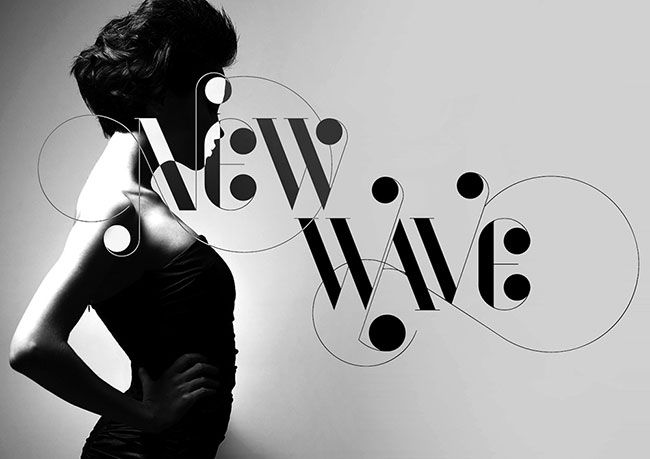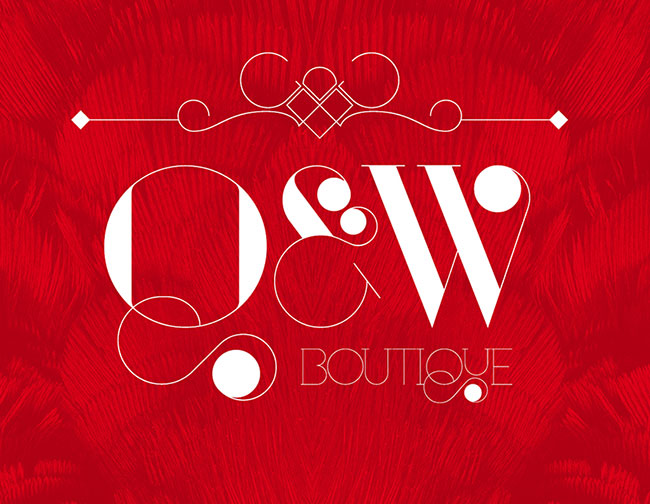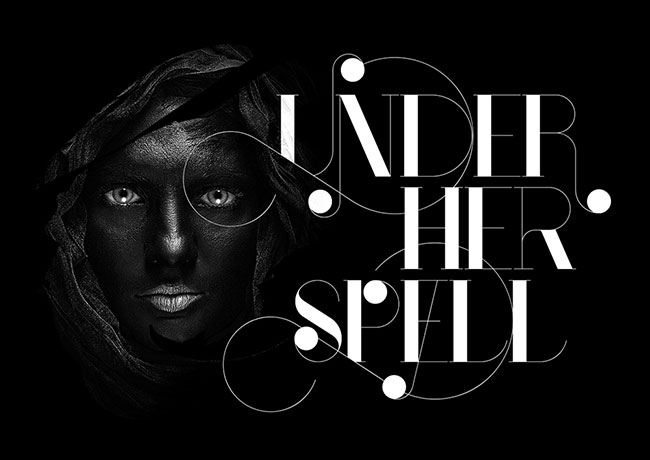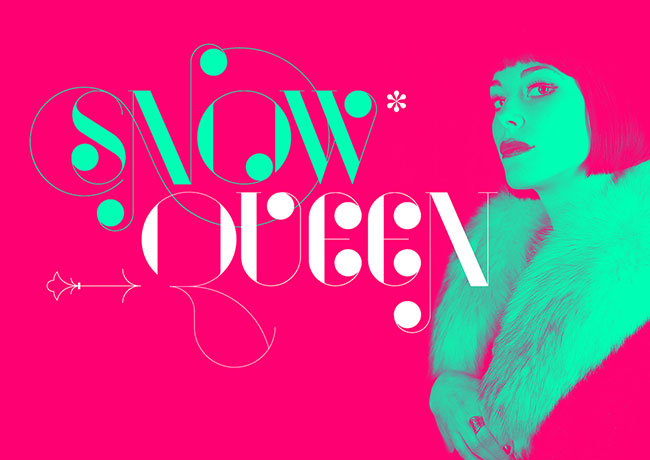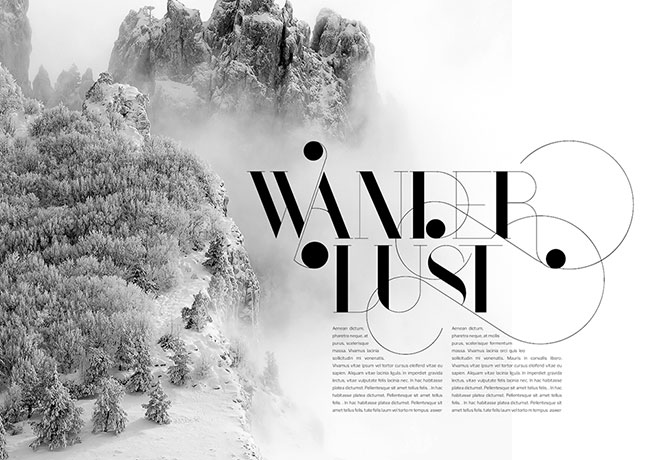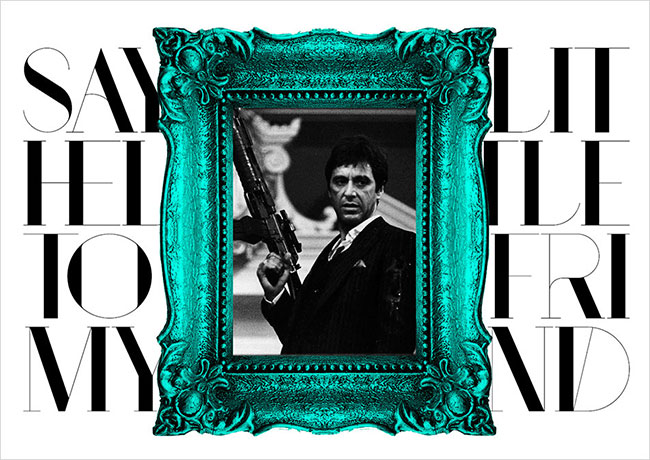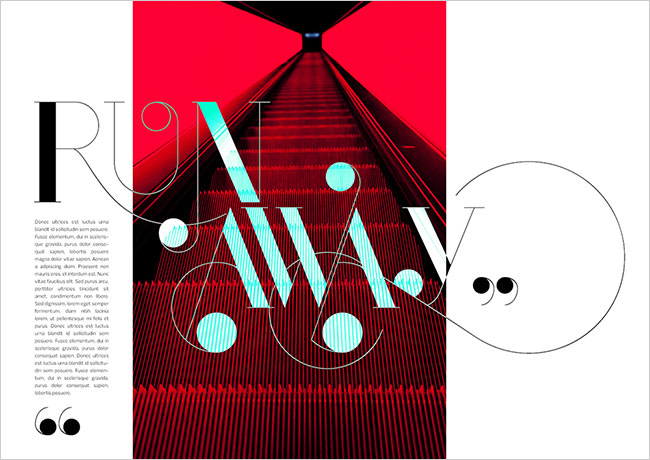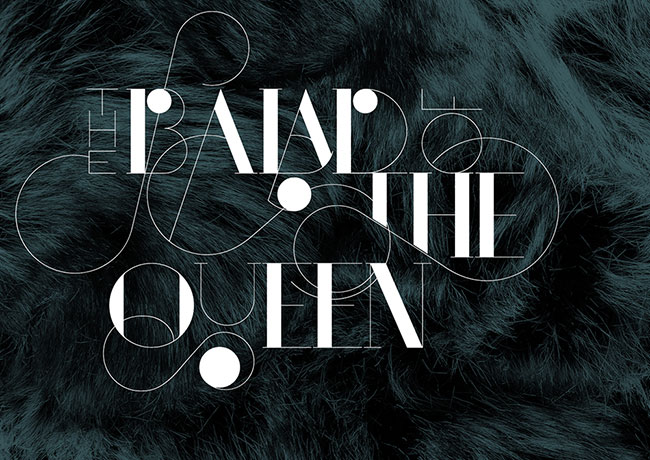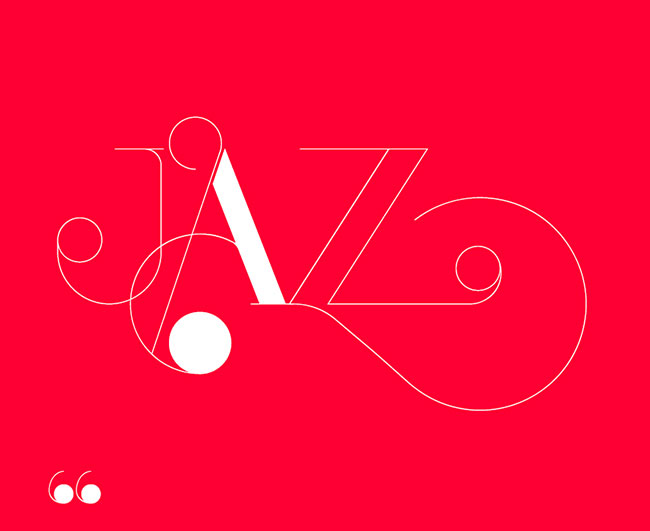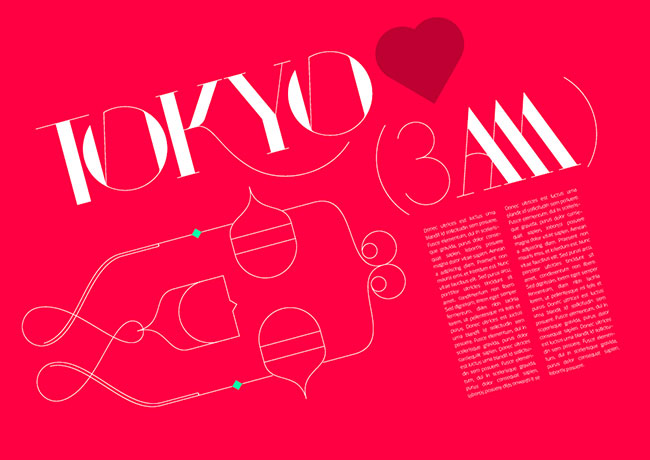
Need a font that screams elegance as loud as it screams brashness? Sure there are plenty of great typefaces out there to use for big, bold eye-catching announcements. And they can all get the job done for sure, but you want something a little more.
You want something classy. Something elegant. Something, well… unique.
- A Modern Twist on Didone
Nothing beats a good experimental font, especially when the results are as breathtaking as the Port Family of fonts. Inspired by popular typographers like Bodoni and Didot, as well as the pure elegance of calligraphy typefaces, Port is a complete experiment in elegance. - Elegance Meets Rigidity
Take the straight lines and bold contrasts of the Didone typefaces and merge them geometrically with the purely elegant lines found in calligraphy and what you’re left with is Port. Truly exciting characters with geometric swashes ready to be mixed and matched any way you see fit. - Classy, Exuberant and Glamourous
Similar to what you’d see in popular fashion magazines, the Port font is simply a beautiful mix of class, glamour and exuberance. - 1069 Unique Glyphs
Talk about diversity. That’s exactly what you get from Port with so many alternate characters, including all the alphabet characters plus 12 different alternates. - Hundreds of Alternates
Open-Type programmed, Port benefits from literally hundreds of alternates to choose from. Mix and match swashes, tilting alternates, ligatures and even stylistic sets with thinner versions of each character. The sky’s the limit! - Big and Bold
The Port font isn’t a shy font. Far from it. You’re meant to use this glamorous font in a big, bold, loud way. It’s perfect for posters, titles or headlines to major pieces. - 6 Different Flavors
- Regular Decorated – Includes richer forms and a bunch more ornamented and extravagant characters.
- Medium and Medium Regular – A bit thicker than the regular, along with decoration variants.
- Ornaments – A large set of elements to generate the fillets, vignettes and fleurons to embellish your designs.
- Words – A beautiful set of the most commonly used words in English, Spanish, French, German, Italian and Portuguese.